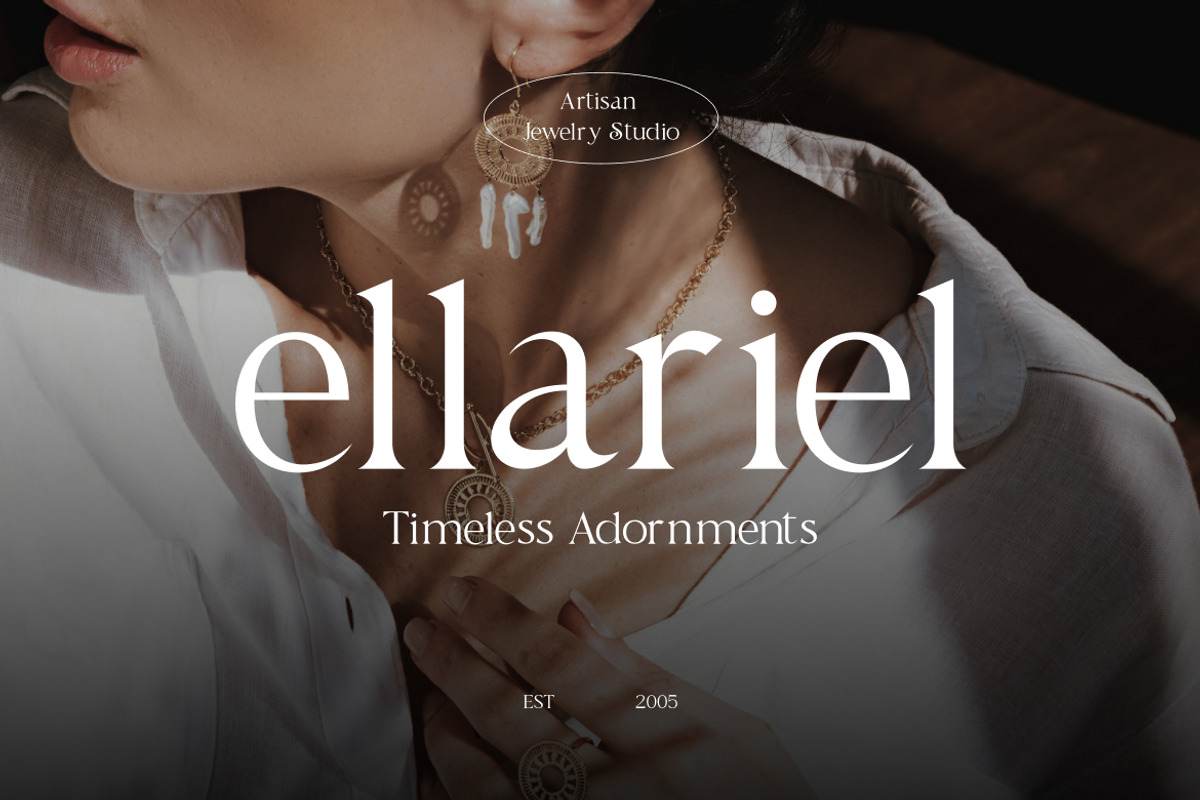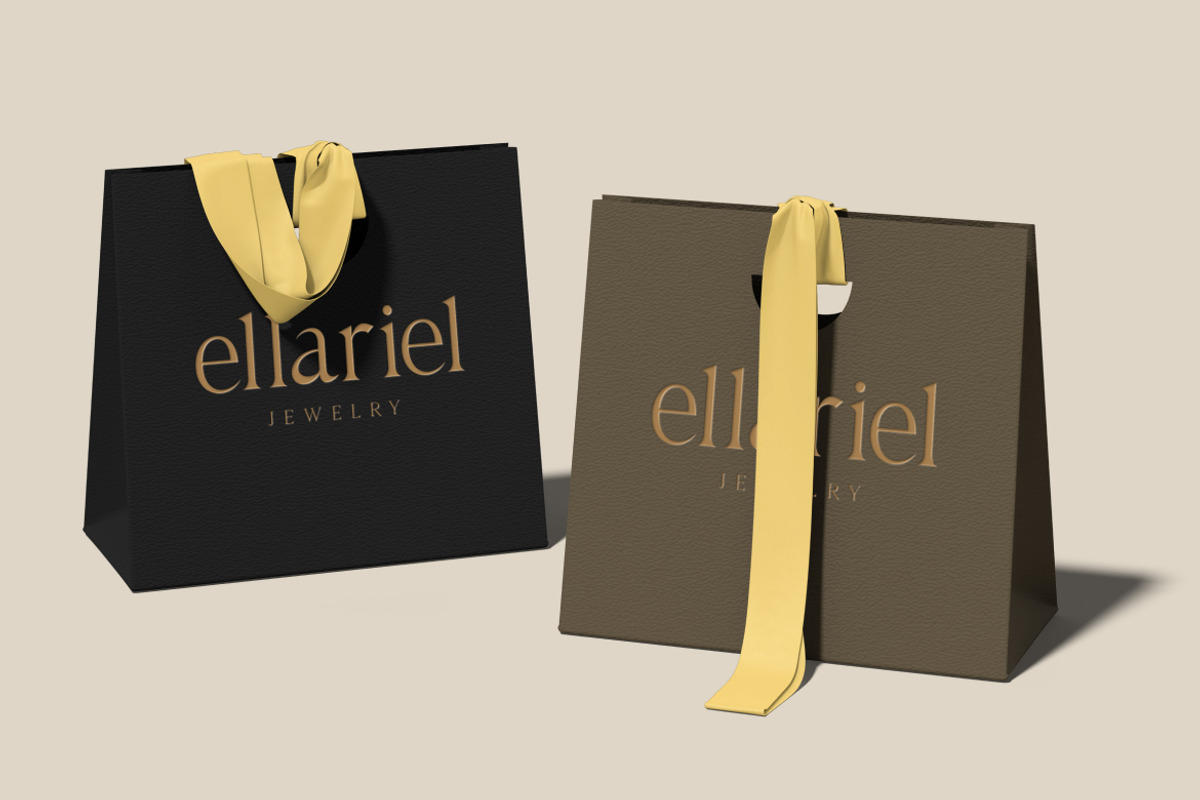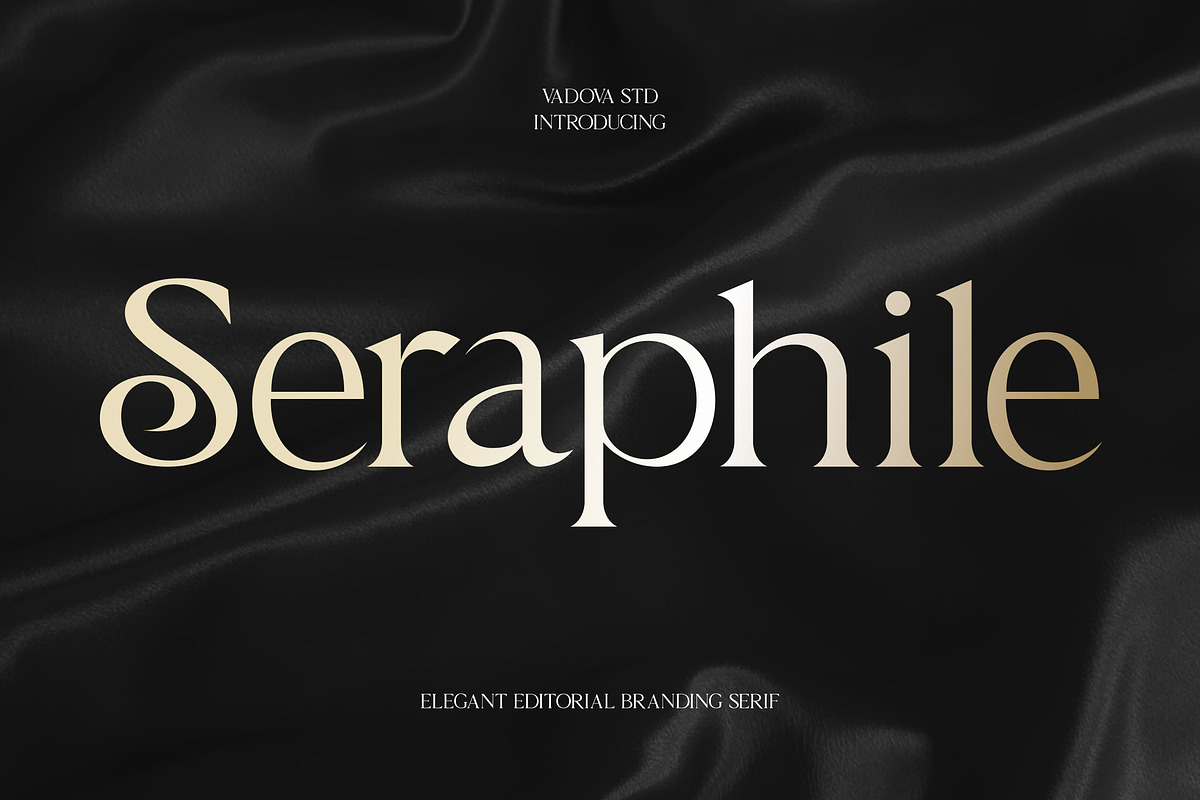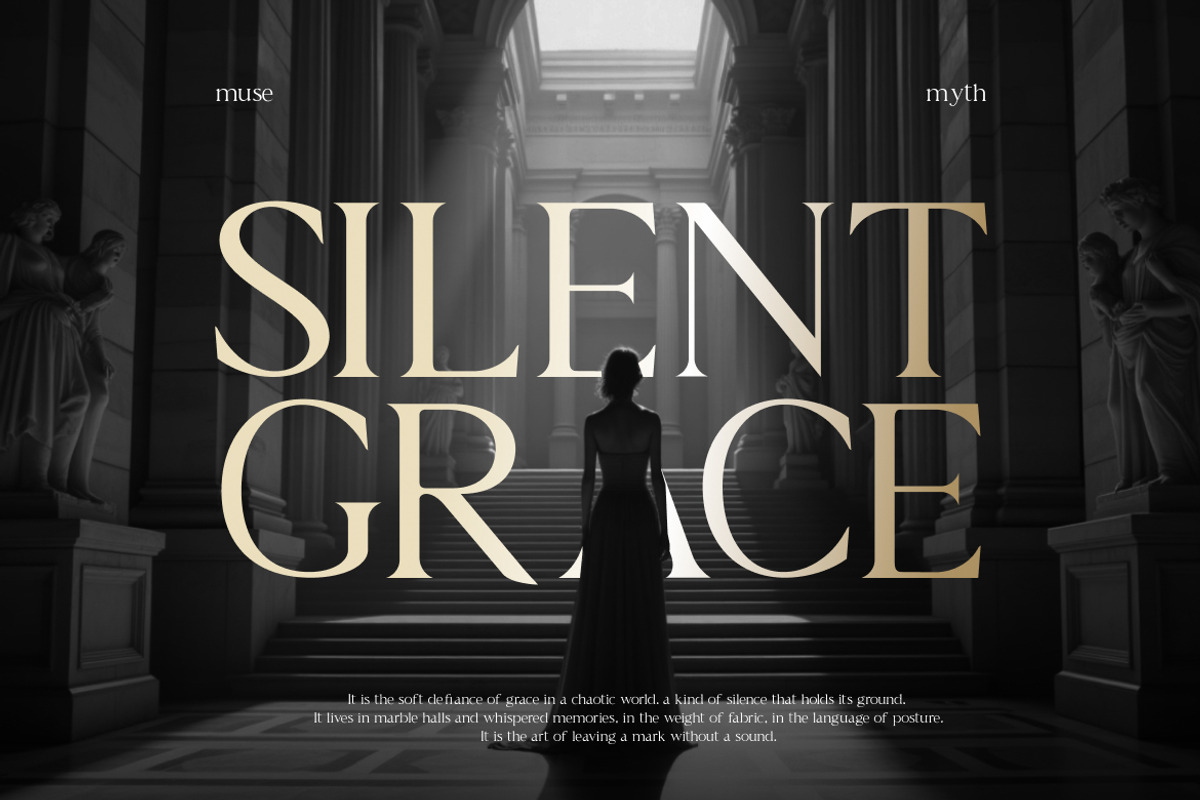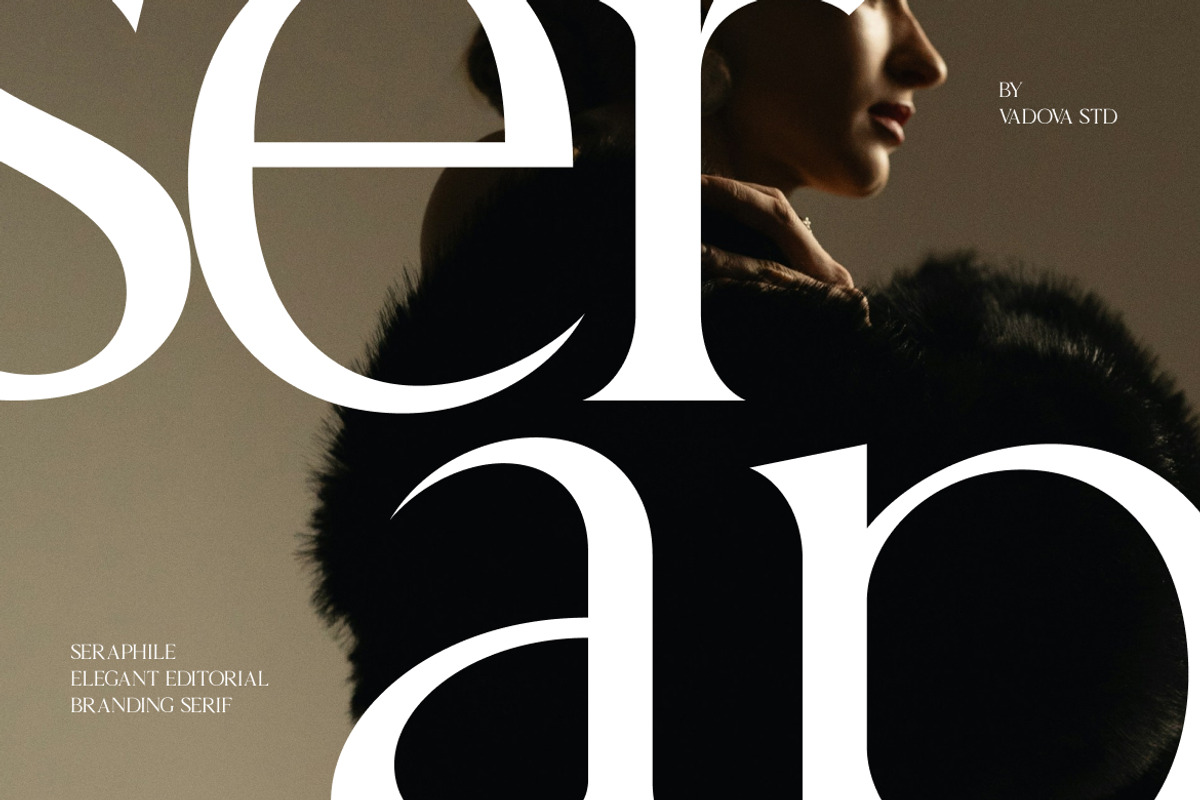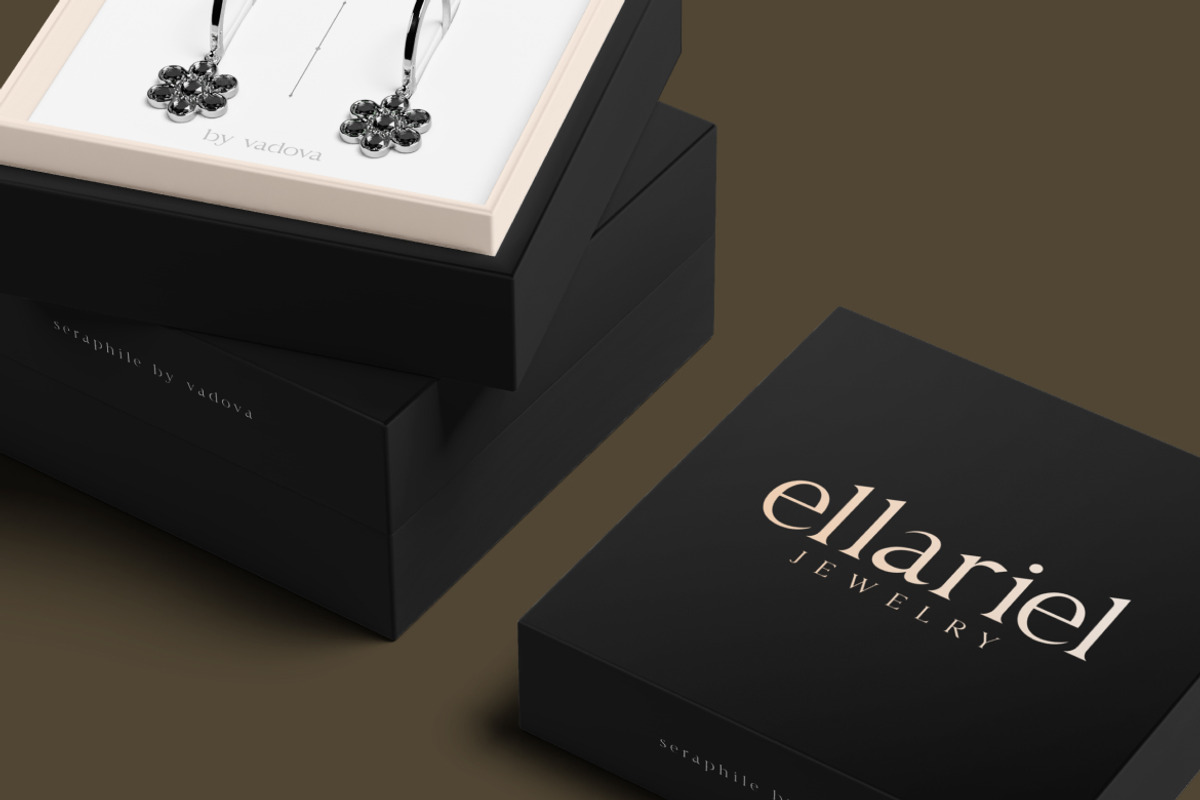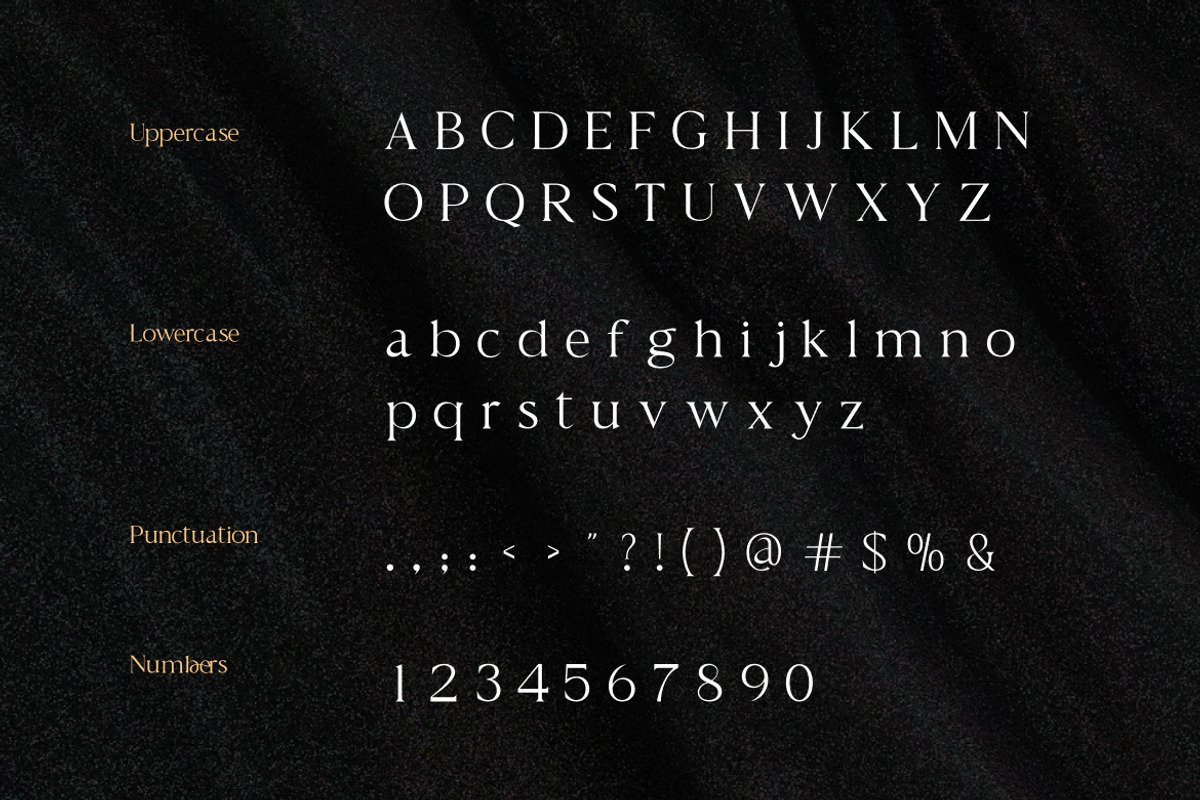
Seraphile Elegant Serif Font
Seraphile is a refined modern serif typeface that merges timeless sophistication with contemporary editorial sensibilities. Crafted with a strong attention to detail, this font embodies a graceful aesthetic through high-contrast strokes, elegant proportions, and subtly flared terminals that echo the beauty of traditional serif typography while embracing a modern attitude.
Designed for visual storytelling, Seraphile lends a unique voice to editorial layouts, high-end branding, fashion campaigns, lookbooks, and artistic promotional materials. It pairs beautifully with minimalist design systems or richly layered visuals, enhancing everything from premium packaging to elegant wedding invitations.
- Elegant serif structure with high contrast between thick and thin strokes
- Subtly flared terminals and fine detailing for a luxurious, editorial feel
- Refined proportions that blend classic inspiration with modern sensibility
- Tall x-height and slender stems for a graceful vertical presence
- Carefully balanced spacing and kerning for smooth legibility
- Luxury branding and high-end identity systems with timeless appeal
- Editorial layouts for fashion magazines, lifestyle publications
- Elegant wedding invitations, formal event stationery
- Premium product packaging, including cosmetics, fragrance
- Website headers, hero text, and social media content
Let Seraphile bring quiet elegance and lasting impact to your design